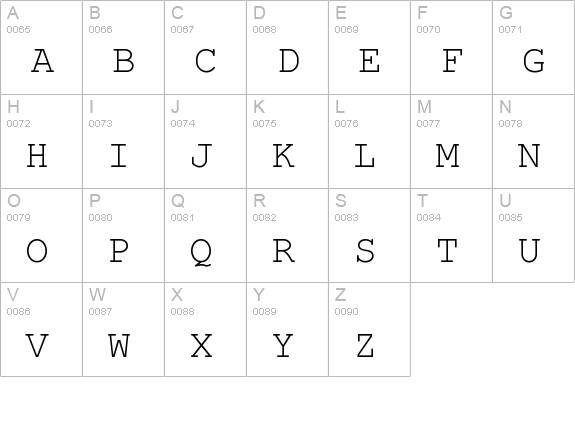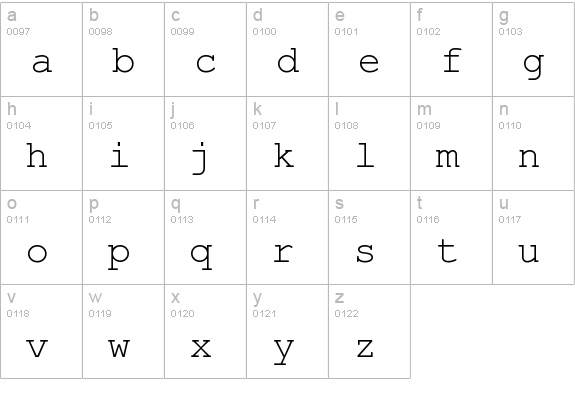
Simplified Arabic Fixed Font Details
Simplified Arabic Fixed font is a versatile and elegant typeface that combines the beauty of Arabic calligraphy with the precision and clarity of a fixed-width design. This font is specifically crafted to bring out the essence of Arabic script while ensuring legibility and readability in various digital and print mediums. With its clean and well-defined letterforms, Simplified Arabic Fixed font is perfect for a wide range of design projects, including editorial layouts, branding materials, signage, and digital interfaces. The fixed-width nature of this font allows for seamless alignment and spacing, making it ideal for applications that require precise positioning, such as coding, programming, and data visualization. Not only does Simplified Arabic Fixed font exude sophistication and professionalism, but it is also freely available to download at FontsMarket.com. This means that you can easily access and use this font to elevate your design projects without any cost. Whether you are a professional designer or a hobbyist, this free font offers endless possibilities for creating visually appealing and impactful designs. So why wait? Enhance your Arabic typography with Simplified Arabic Fixed font and experience the perfect blend of traditional calligraphy and modern design aesthetics. Download it for free at FontsMarket.com and unlock a world of possibilities for your creative endeavors.